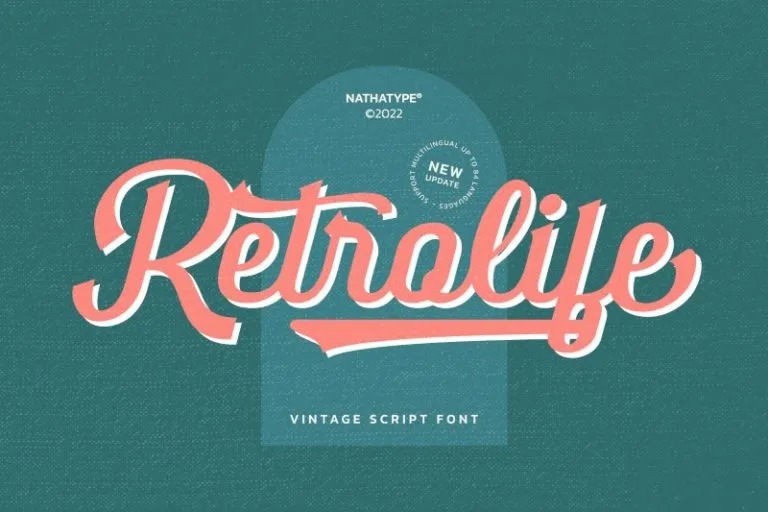
Retrolife Script Font
This is sweet vintage handwritten font from designer Din Studio. It maintains its classy calligraphic influences while feeling contemporary and fresh. This font is very easy to read, because there are many fancy letter joints. Perfect to be applied in various formal forms such as invitations, labels, restaurant menus, logos, fashion, make up, stationery, novels, magazines, books, greeting / wedding cards, packaging, labels or all kinds of advertising purposes.